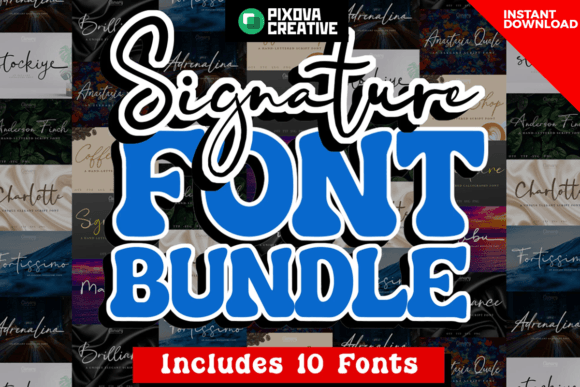
Signature Script Bundle: 10 Elegant Fonts for Creative Projects
More Than Just a Pretty Typeface
When you’re building a brand or designing a project, the font you choose does much more than display letters. It sets a tone, conveys a personality, and creates an immediate emotional connection with your audience. The Signature Script Bundle is a curated collection of 10 unique, hand-crafted fonts designed to bring a distinct touch of elegance and authenticity to your work. This isn’t a generic library of standard styles; it’s a focused toolkit for anyone looking to inject warmth, sophistication, or a personal flourish into their designs.
Each typeface within the bundle has its own character, ranging from flowing, connected scripts that mimic natural handwriting to more structured, elegant serifs with a modern twist. The common thread is a sense of craftsmanship. These are premium fonts designed to look and feel authentic, avoiding the stiff, mechanical appearance of many digital typefaces. Whether you’re a designer working on a client’s brand identity or a small business owner creating your own marketing materials, this collection offers versatile tools for making a lasting impression.
Where These Fonts Truly Shine
The real value of the Signature Script Bundle lies in its practical application across a wide range of projects. Its strength is in contexts where personality and readability must coexist. Think of a wedding invitation suite where the script font adds romance, while a clean sans-serif from the bundle handles the event details. Consider a boutique product label where a handwritten font communicates artisanal quality, paired with a simple serif for ingredient lists. This kind of thoughtful font pairing is fundamental to professional design, and having a cohesive family makes the process intuitive.
For digital creators and marketers, these fonts are incredibly useful. They can elevate social media graphics, making a quote post or a promotional slide feel more curated and impactful. In web design, a distinctive script font used for headlines can break the monotony of standard web-safe fonts, helping a site stand out. For bloggers and content creators, using these typefaces in featured images or infographics adds a layer of visual polish that strengthens personal branding. The bundle’s compatibility with major platforms like Canva Pro, Adobe Creative Suite, and even Cricut Design Space means you can seamlessly integrate these assets into your existing workflow, whether you’re designing digitally or for physical products like decals and custom apparel.
Making a Strategic Choice for Your Project
Choosing the right font from the bundle requires looking beyond what looks “cool” and considering the specific needs of your project. Start by evaluating the mood you need to set. Is your brand voice romantic, modern, classic, or playful? Scan the ten options and identify which ones visually align with that personality. A flowing script might be perfect for a beauty brand logo, while a more upright, semi-connected script could work better for a coffee shop menu, balancing elegance with easy legibility at a glance.
Readability is paramount, especially in body text or at small sizes. While script fonts are beautiful for headlines and logos, they can become difficult to read if overused. A practical approach is to use the Signature Script Bundle fonts for display purposes—titles, pull quotes, logos, and key phrases—and pair them with a more neutral serif or sans-serif font for longer paragraphs. This creates a clear visual hierarchy, guiding the reader’s eye and improving overall comprehension. Always test your chosen combination at the size it will be viewed, whether on a mobile screen or a printed brochure.
Ultimately, investing in a quality font bundle is an investment in your visual communication. The Signature Script Bundle provides a cohesive set of design assets that can help elevate your brand identity, create more engaging marketing collateral, and add a professional touch to any creative project. It’s about having the right tools to tell your story effectively and beautifully.